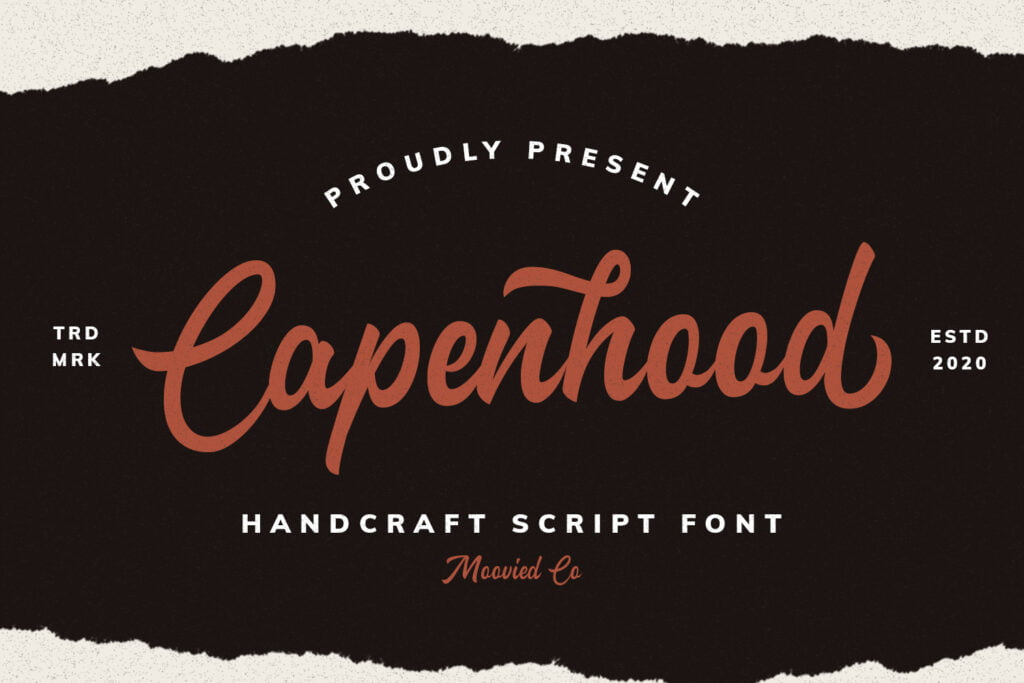
Capenhood Font
Capenhood is a stylish and incredibly elegant calligraphy font. It looks stunning on wedding invitations, thank you cards, quotes, greeting cards, logos, business cards and every other design which needs a handwritten touch.
Capenhood Calligraphy Font